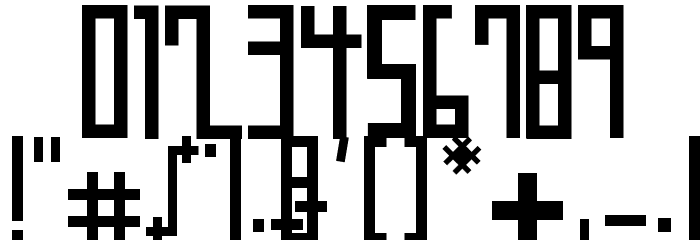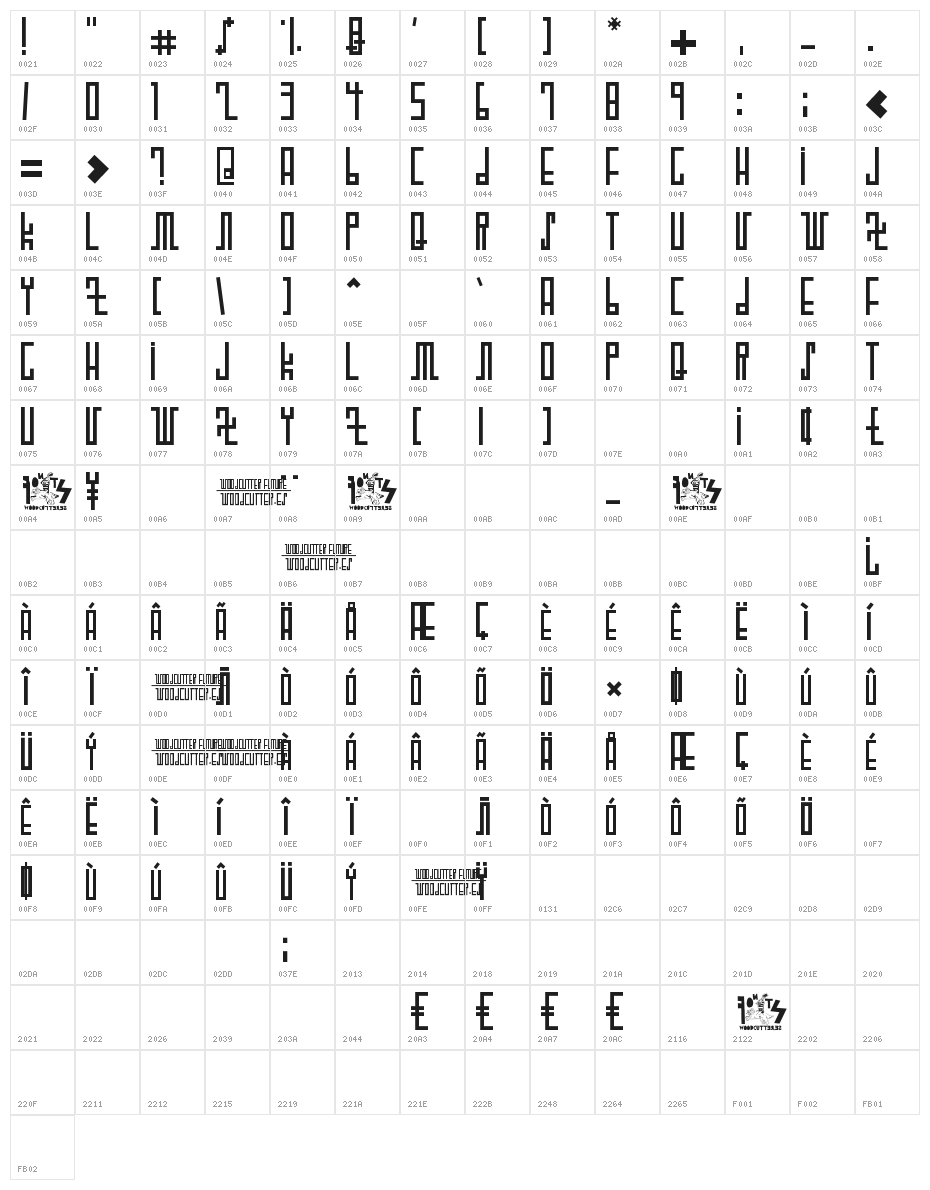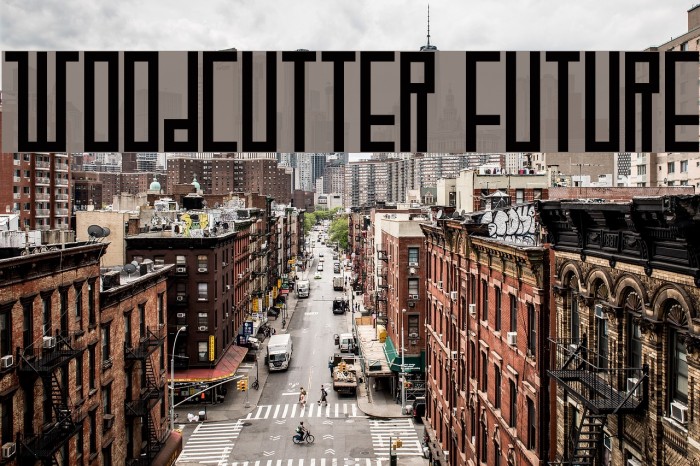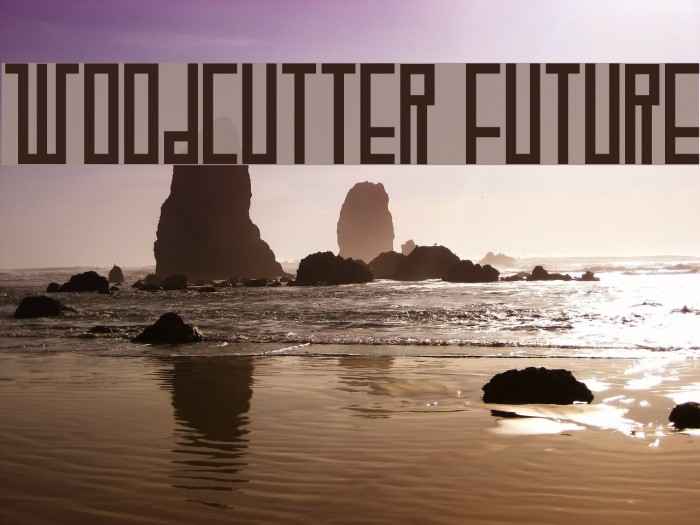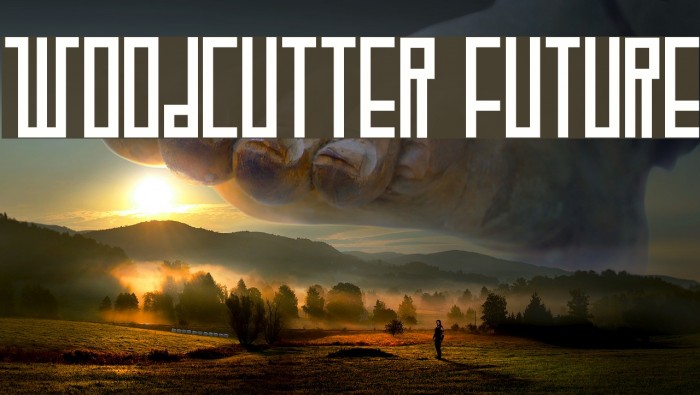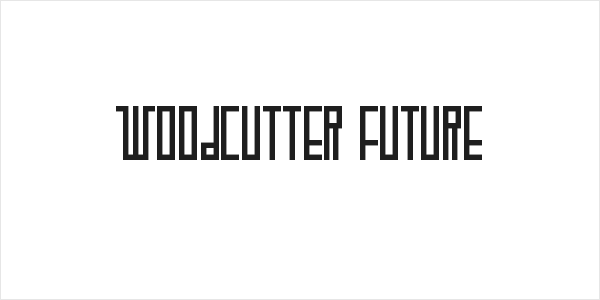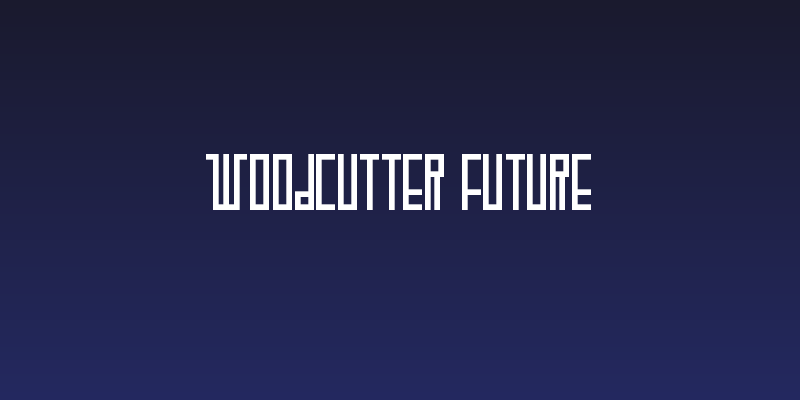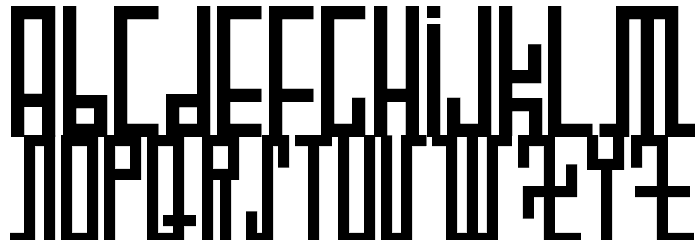
WOODCUTTER FUTURE Font
WOODCUTTER FUTURE Description
This font features a bold, geometric design with a futuristic and digital aesthetic. The characters are constructed with sharp, angular lines and consistent stroke widths, giving it a blocky and pixelated appearance. The uppercase and lowercase letters maintain a uniform height, contributing to a monospaced feel, while the numerals and special characters follow the same design principles. The overall style is reminiscent of early digital displays and video game graphics, making it ideal for projects that require a modern and tech-inspired look.
| Proposed Projects | Ideal for tech-related branding, video game graphics, digital art projects, and futuristic-themed posters. |